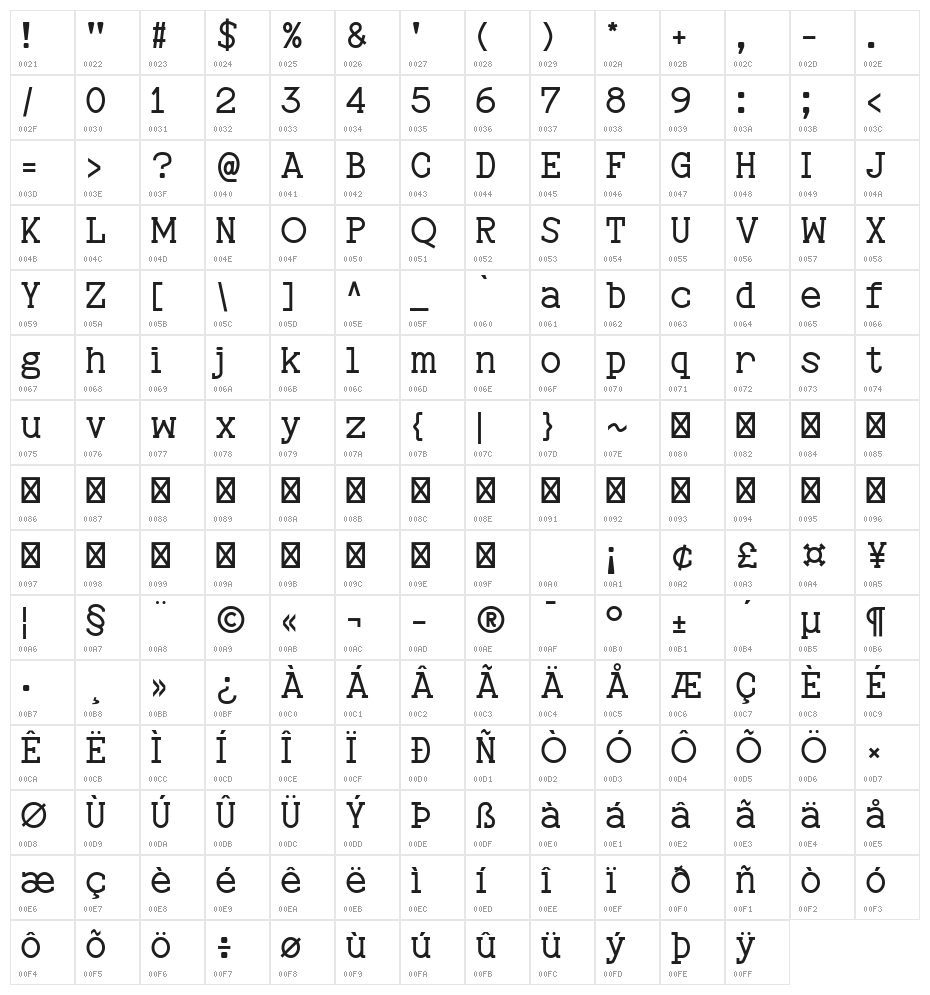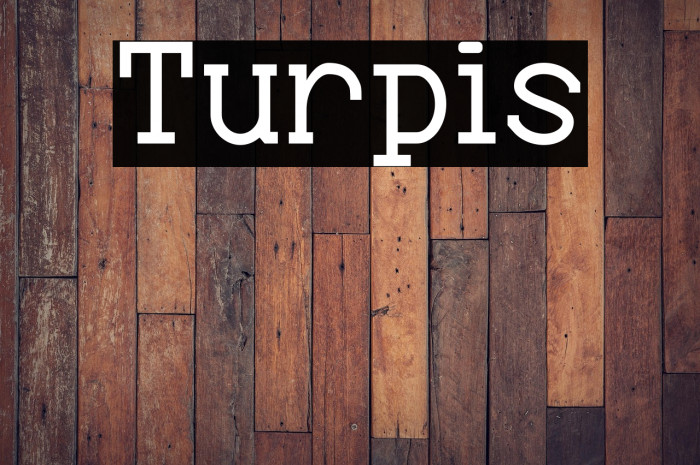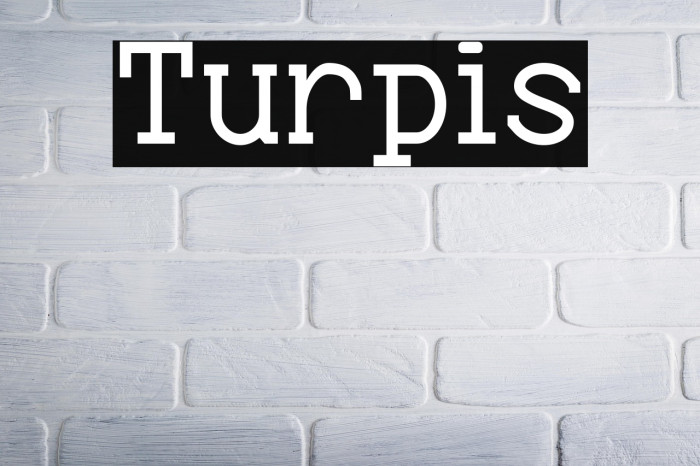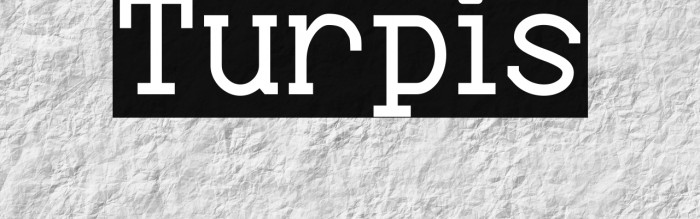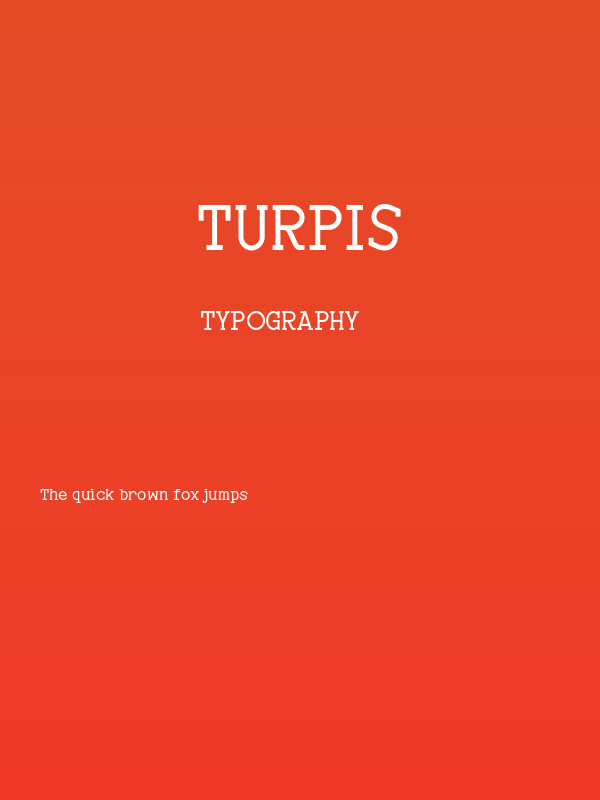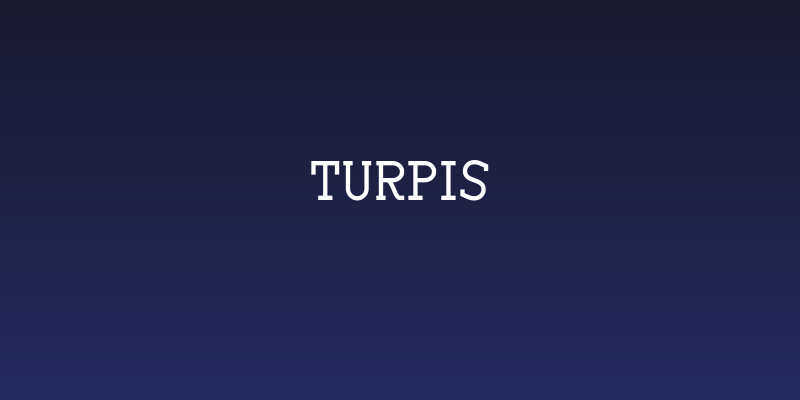
Turpis Font
Turpis Description
This font is a slab serif typeface characterized by its thick, block-like serifs. It presents a bold and authoritative appearance, making it suitable for headlines and titles. The uppercase letters are robust and commanding, while the lowercase letters maintain a consistent weight, ensuring readability. The numerals are clear and distinct, with a uniform width that aligns well with the overall design. Special characters are crafted with precision, maintaining the font's strong presence. The font's structure is balanced, offering a harmonious blend of modern and classic elements.